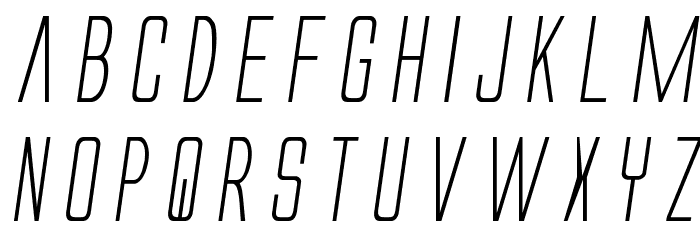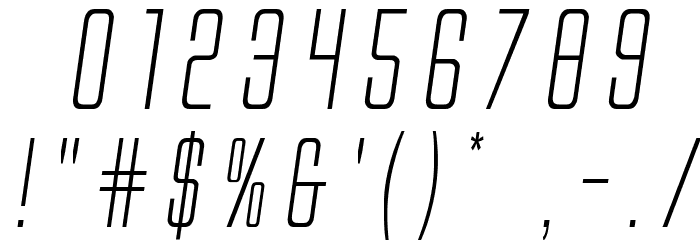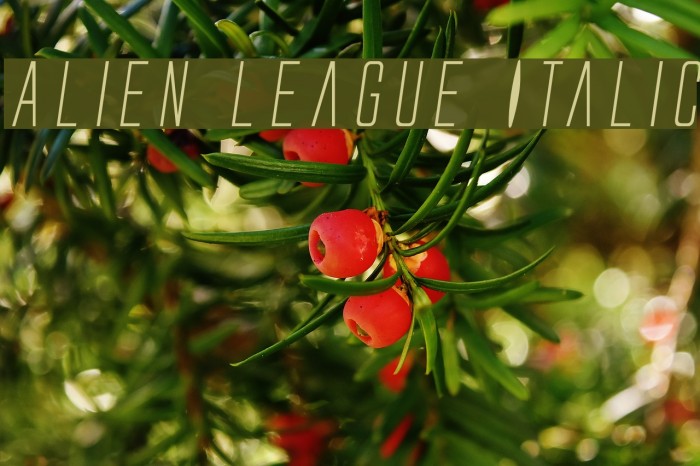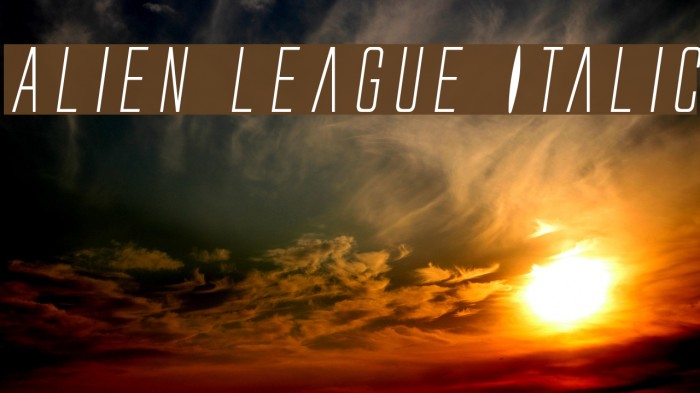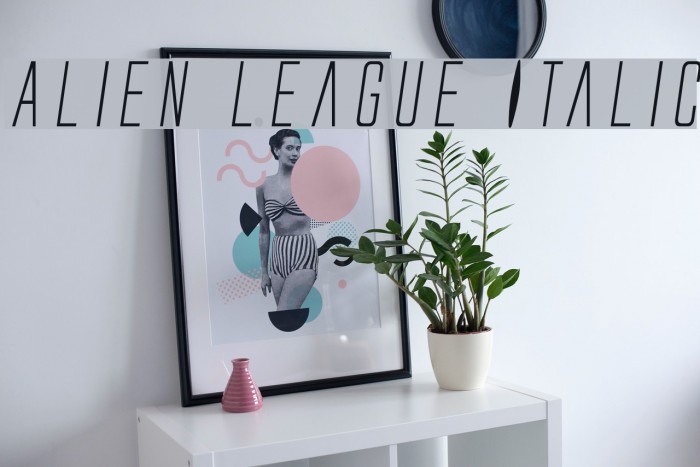
Alien League Italic Font
This font features a sleek, futuristic design with elongated, narrow characters that convey a sense of speed and modernity. The italic style adds a dynamic, forward-leaning appearance, enhancing its energetic and contemporary feel. Each letter is crafted with precision, showcasing a unique blend of sharp angles and smooth curves. The uppercase and lowercase letters maintain a consistent style, while the numerals and special characters complement the overall aesthetic. The font's distinctiveness lies in its ability to stand out while maintaining readability, making it suitable for a variety of creative applications.
A sleek, futuristic italic font with elongated, narrow characters.
- Proposed Projects: Ideal for sci-fi themed designs, technology branding, video game titles, and modern advertising campaigns.